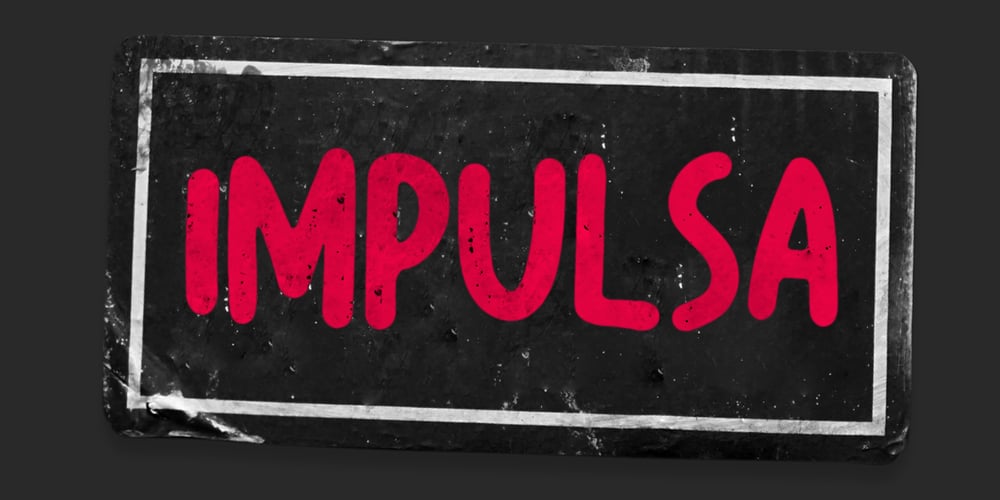
Impulsa
Impulsa font
Impulsa Font Family was designed by Ian Irwan Wismoyo and published by Just Font You. Impulsa contains 1 styles and family package options. Impulsa is a very impulsive handwritten font. It is finished with digital touch but still keep holding on to the honest of the handwriting feeling. I believe messages with personalized handwriting vibes always deliver deeper feelings to anybody. Impulsa is an all-caps font. You can play with the uppercase and lowercase mix to get the different vibes of every letters so it looks seamlessly handwritten.